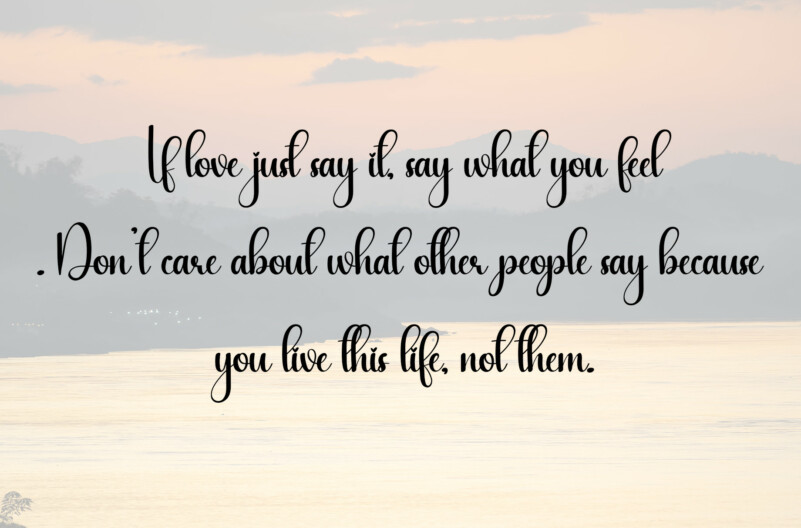
Kitchen Script Font is a sweet and friendly handwritten display font. Cute and fun, this font is ideal for writing wedding invitations, cards, or any other design that might need a playful touch!